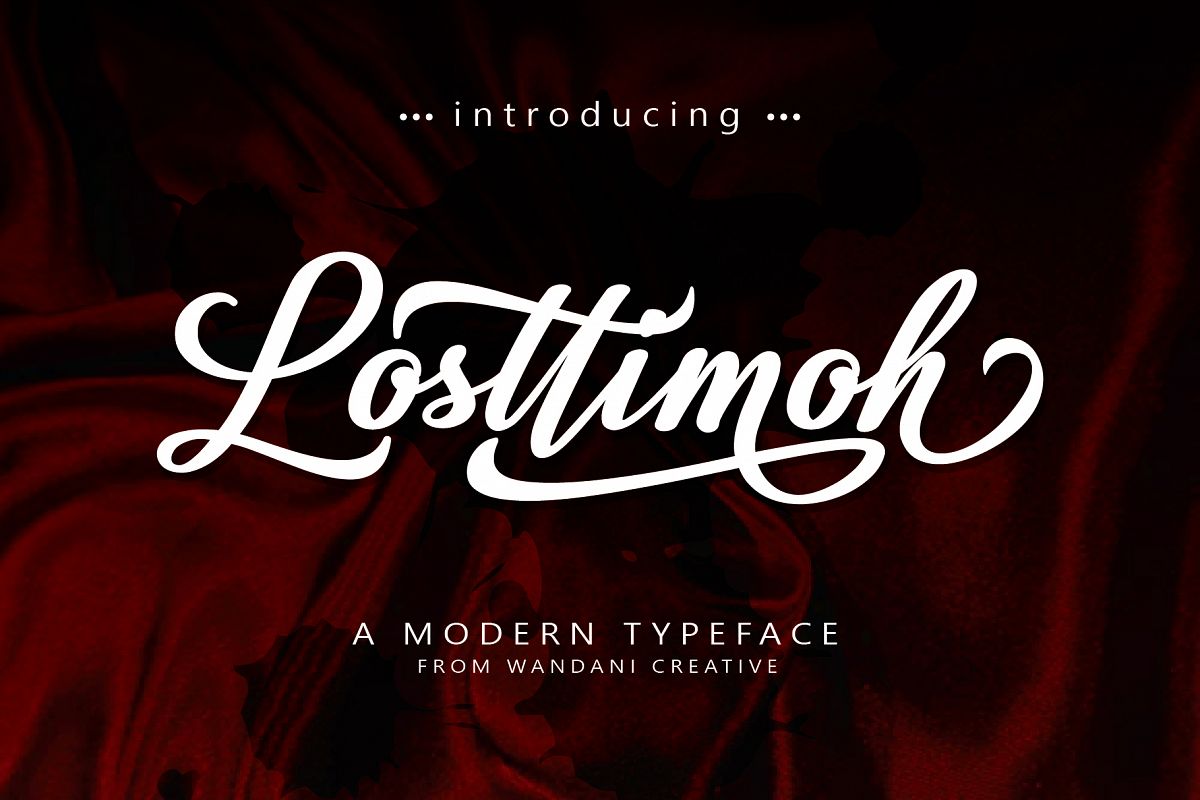
Losttimoh | A Modern Script
Losttimoh is a typeface script with a personality. It was designed as well as possible to enhance the beauty of your design. You can use it as a logo, badge, packaging, title, poster, t-shirt / clothing, greeting cards, and wedding invitations. Flowing characters are ideal for creating interesting, mixing and matching messages with a group of alternative characters that fit your project.
Losttimoh come with 480 glyphs. The alternative characters were divided into several Open Type features such as Swash, Stylistic Sets, Stylistic Alternates, Contextual Alternates. The Open Type features can be accessed by using Open Type programs such as Adobe Illustrator, Adobe InDesign, Adobe Photoshop, Corel Draw X version, And Microsoft Word. And this Font has given PUA unicode (specially coded fonts). so that all the alternate characters can easily be accessed in full by a craftsman or designer.
Main Feature:
• Style Collection 01-08
• Number
• Punctuation
• Symbols Support
• PUA Unicode
• and mores